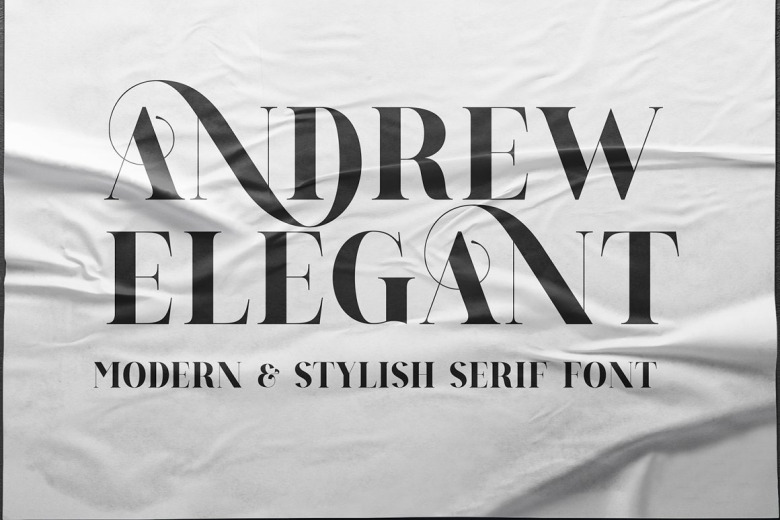
Andrew Elegant Font
Andrew Elegant Serif Font is a modern vintage beauty typeface. A new ligature serif font with lots of alternative that will bring your projects a touch of classic and modern style. Recomended for logotypes, branding, wedding monograms and invitations, blog headlines and much more. Flip through all the previews and get inspired like I was while creating this font.
Andrew Elegant Serif Font